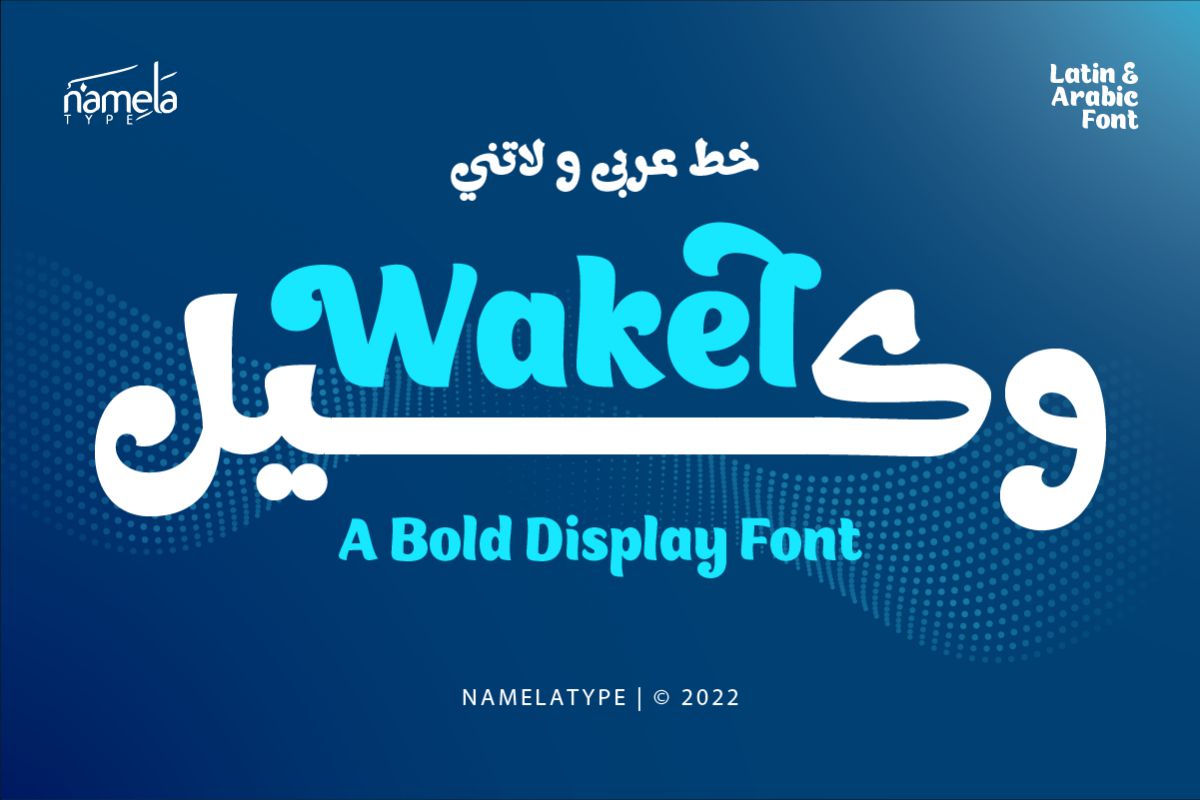
Wakel Arabic Regular
Wakel Arabic Font - A Bold Stylish Arabic Display Typeface for Logo Branding & ePub Some fonts are designed to blend in. Wakel is designed to speak in two languages—and stand out in both. Created by Namelatype, Wakel is a bold and stylish display font built as a bilingual system combining Arabic and Latin. It brings a unified visual voice across two writing systems, making it a powerful tool for modern branding, global communication, and digital publishing—including ePub. With its thick, conf